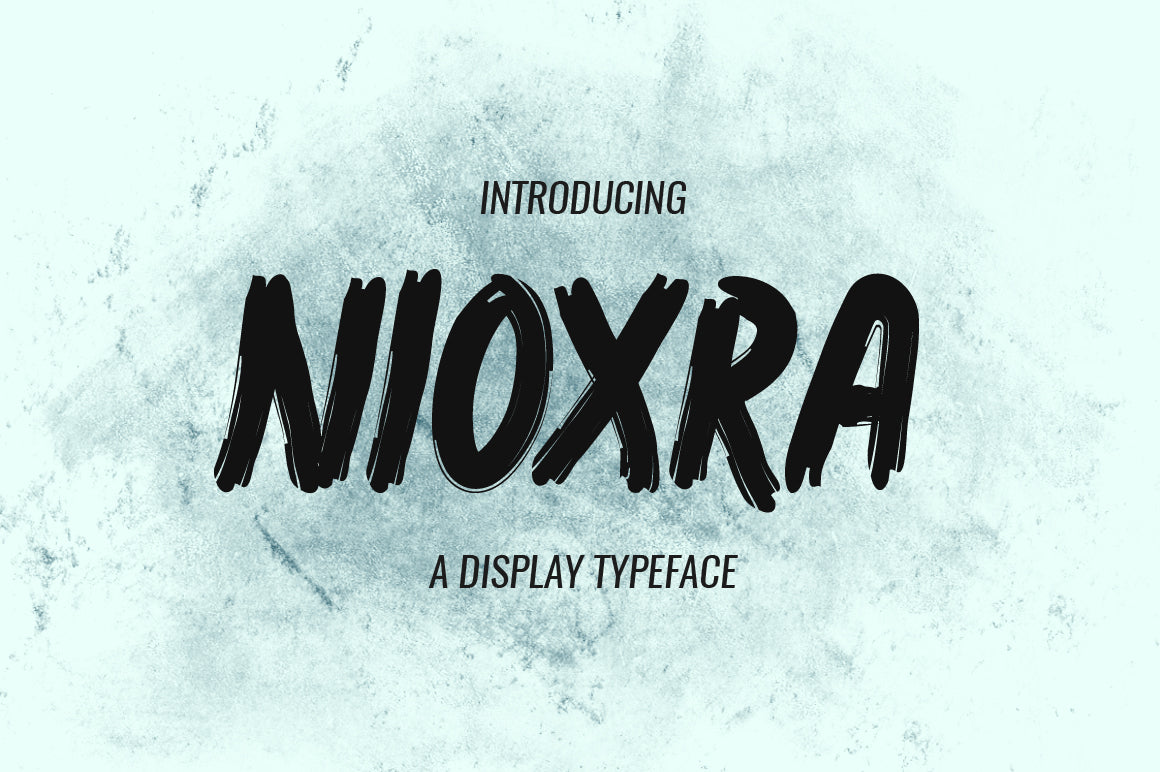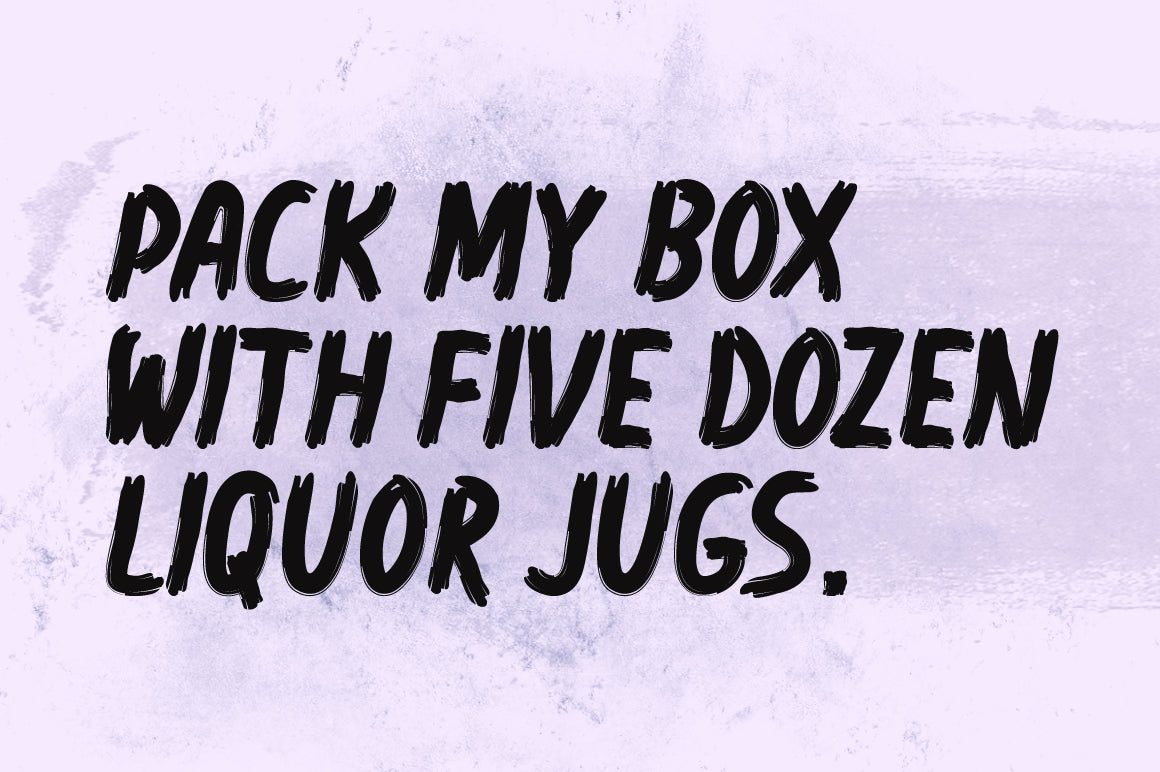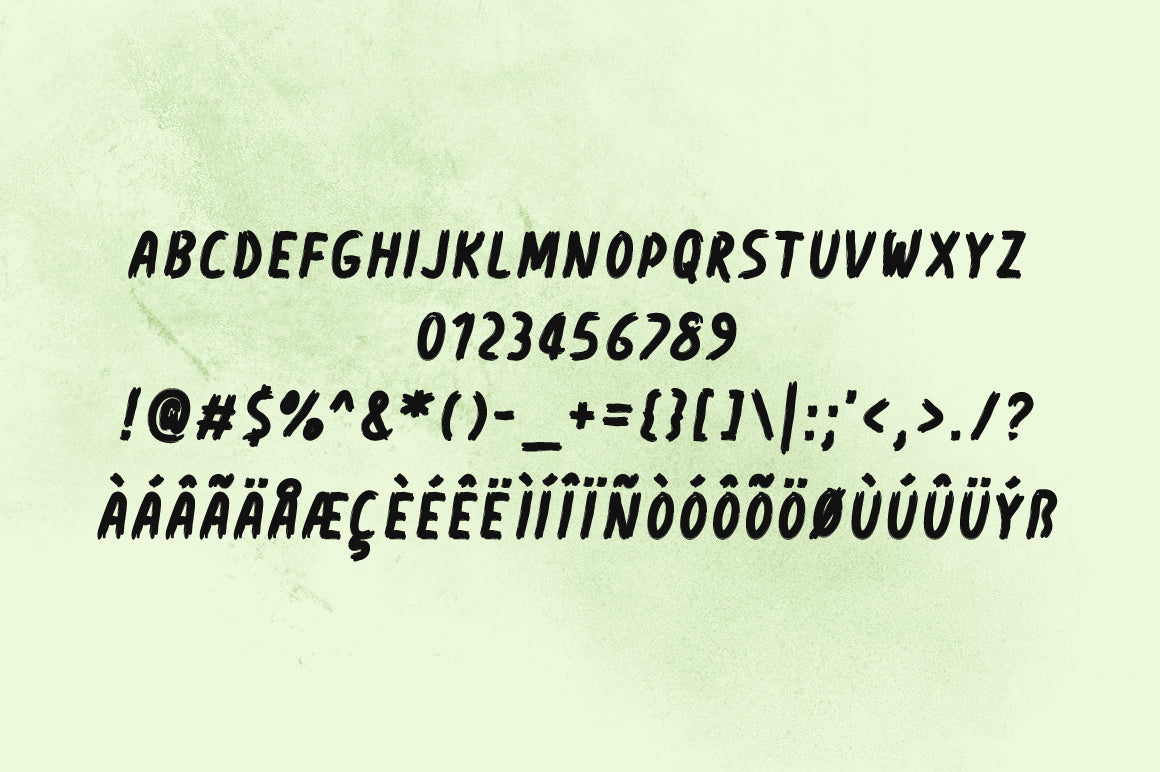
Nioxra is a fantastic display font, made up of textured brush strokes. Bold, expressive, and full of character, Nioxra will be at home in any number of projects, offering a raw and artistic feel that breaks away from the typical, mechanical look.
Whether you're designing posters, album covers, apparel, or social media graphics, Nioxra adds a handcrafted, authentic edge. Add Nioxra to your font collection—it’s a surefire way to diversify your design options and bring energy and personality to your work.